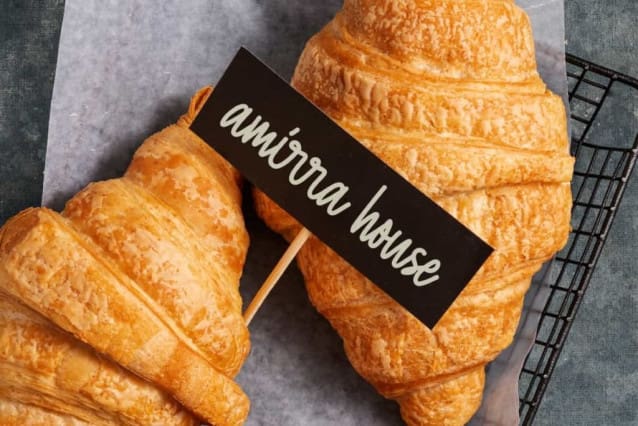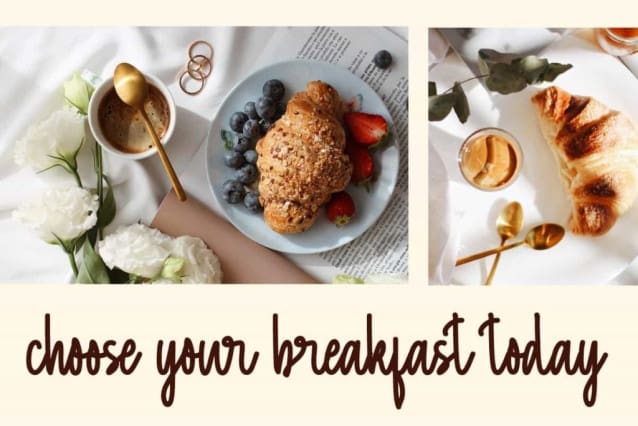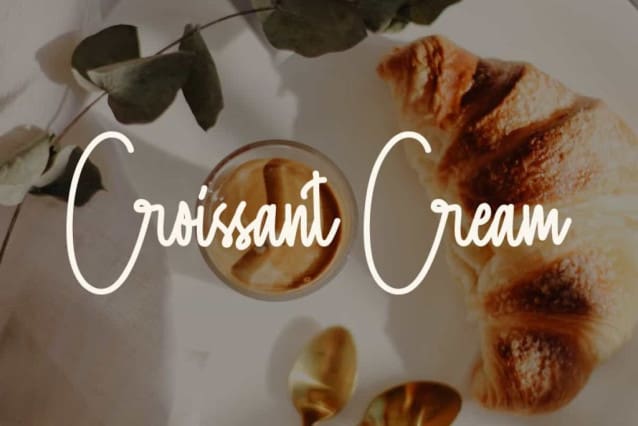
Croissant Cream Font
Croissant Cream Font is a natural and stylish handwriting font. This font has the appearance of real handwriting using a pen with small and thin ink. It will suits many designs, such as brochure, cover, custom design, gift box, invitation, label, menu, poster, product packaging, quote, screen printing, signage, stationery, website, and more!
Croissant Cream Font includes full set of Uppercase and Lowercase Basic Characters, Numerals, and Punctuation. This font is also containing Ligature characters and will be suitable for many industries, such as advertising, beauty product, café, event or wedding organizer, fashion, furniture, handicraft, kids stuff, photography, etc.